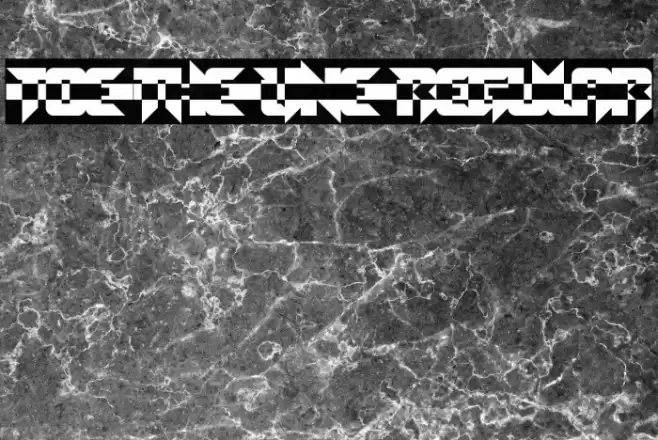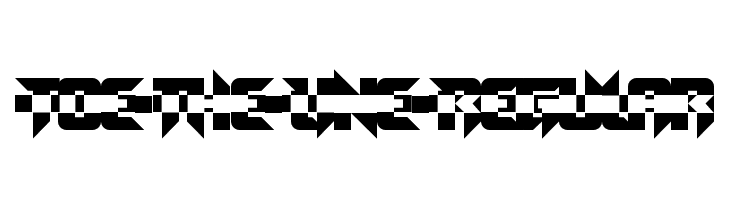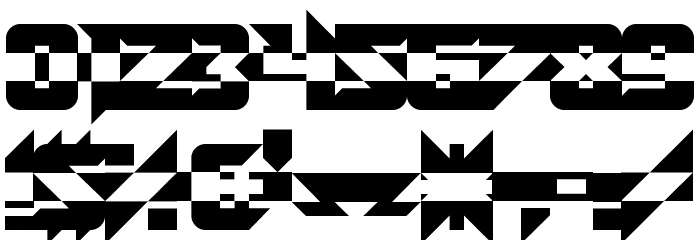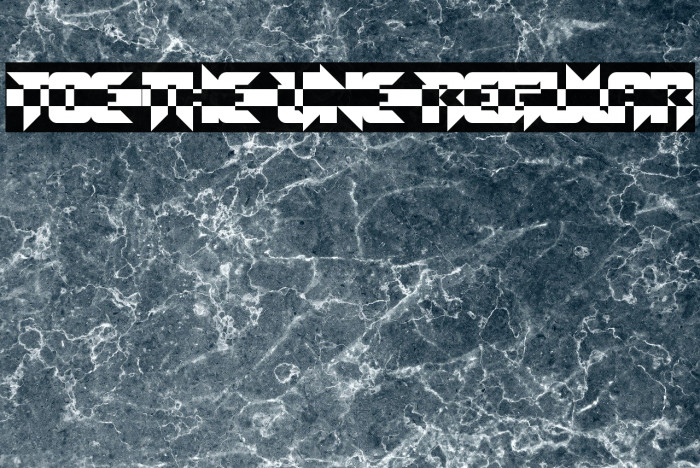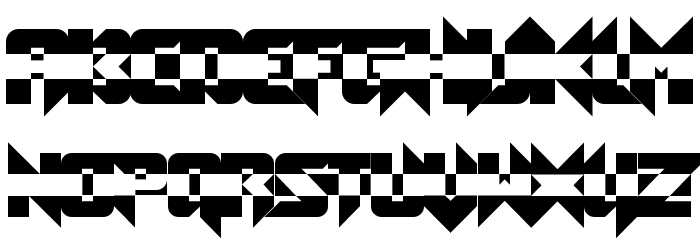
Toe the Line Regular Font
Toe the Line Regular Description
This font features a bold, geometric design with sharp angles and a futuristic aesthetic. The characters are heavily stylized, incorporating a mix of solid and cut-out sections that create a dynamic, edgy look. The uppercase and lowercase letters maintain a consistent style, with a strong emphasis on angular shapes and a sense of movement. The numbers and special characters follow the same design principles, ensuring a cohesive appearance across all elements. This font is highly decorative and makes a strong visual impact, ideal for projects that require a modern and bold statement.
- Proposed Projects: Ideal for sci-fi themed designs, video game titles, posters, and branding that requires a modern, edgy look.
- Overall Style: Futuristic, Edgy